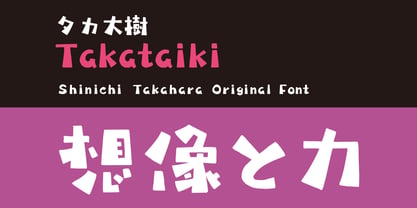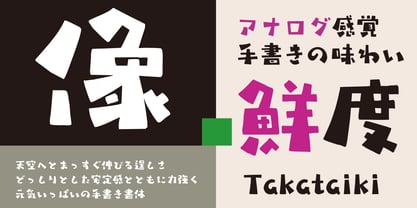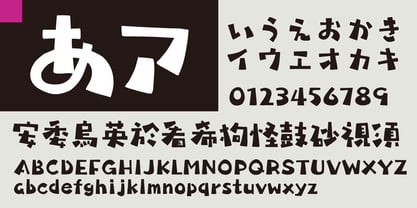
Takataikai
The Takataikai Font Family was designed by and published by Taka Design Production. Takataikai contains 1 styles. More about this family
It is handwriting itself with an analog feel. It is a handwritten typeface with a strong touch that has a rustic structure, a sense of oceanic scale, and a rich inclusiveness.